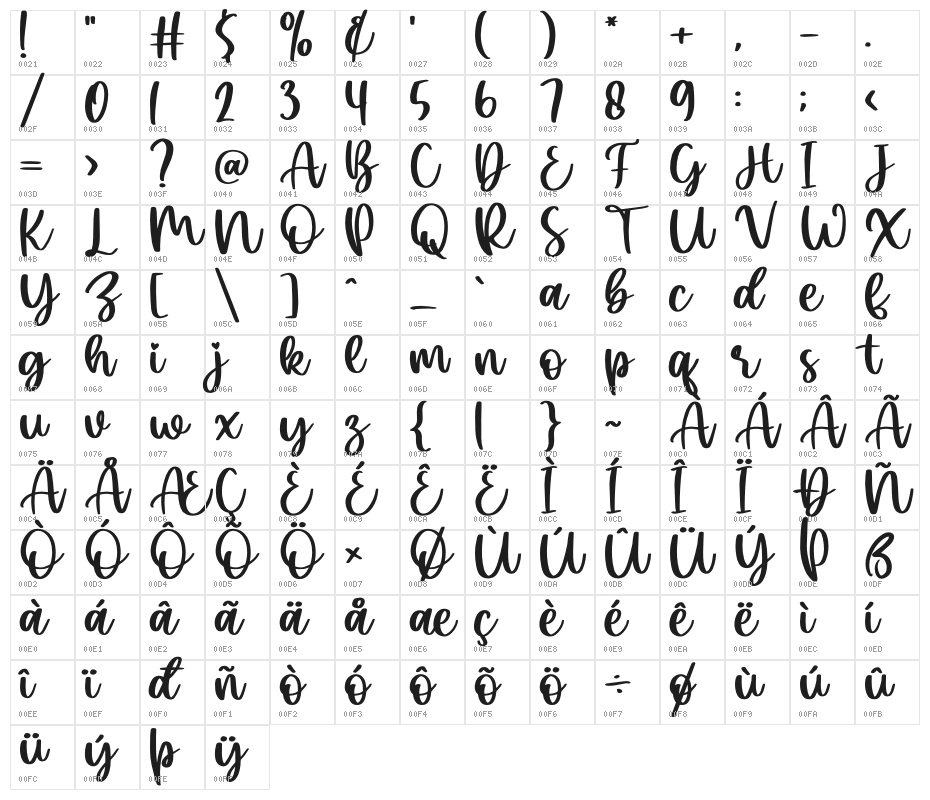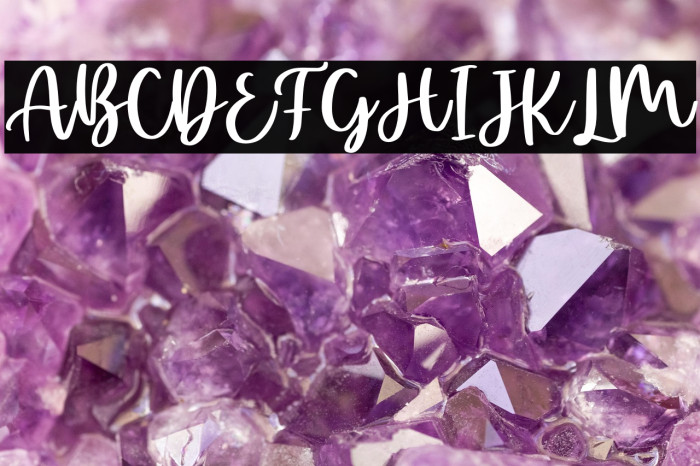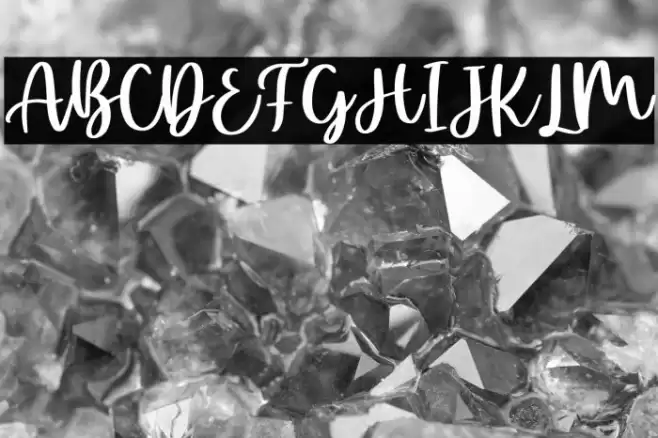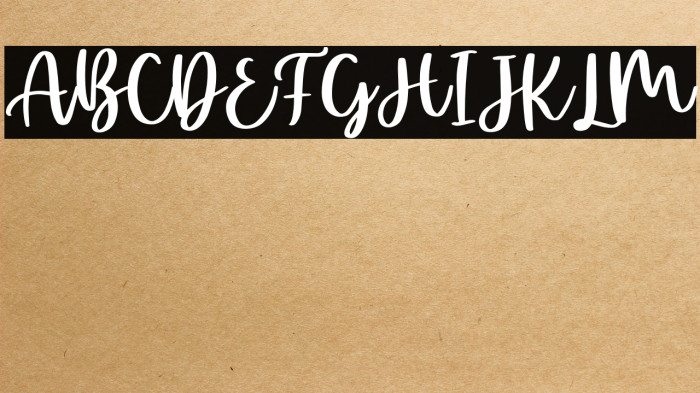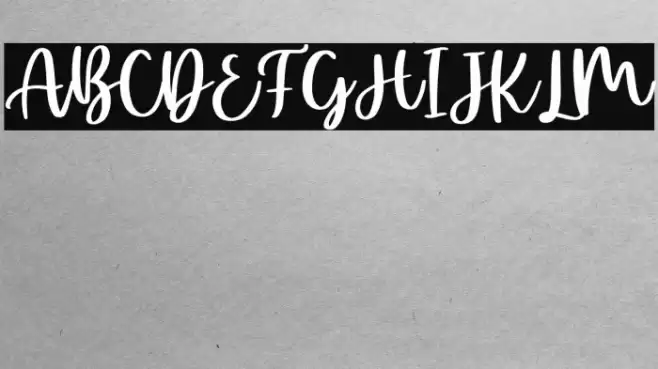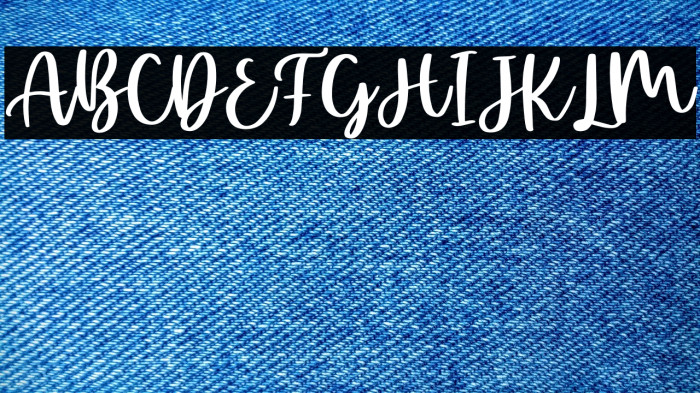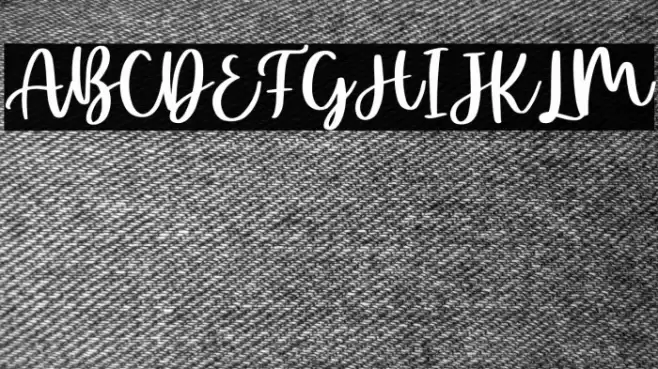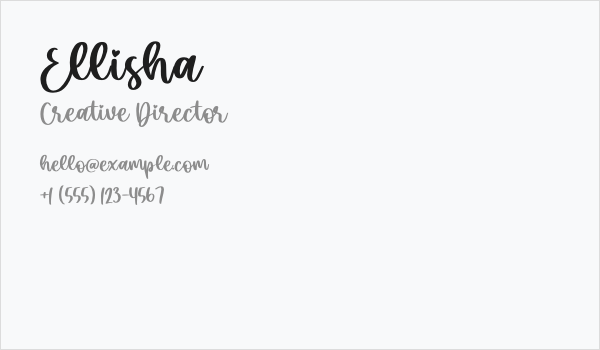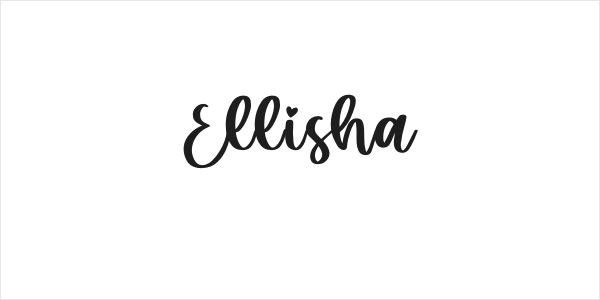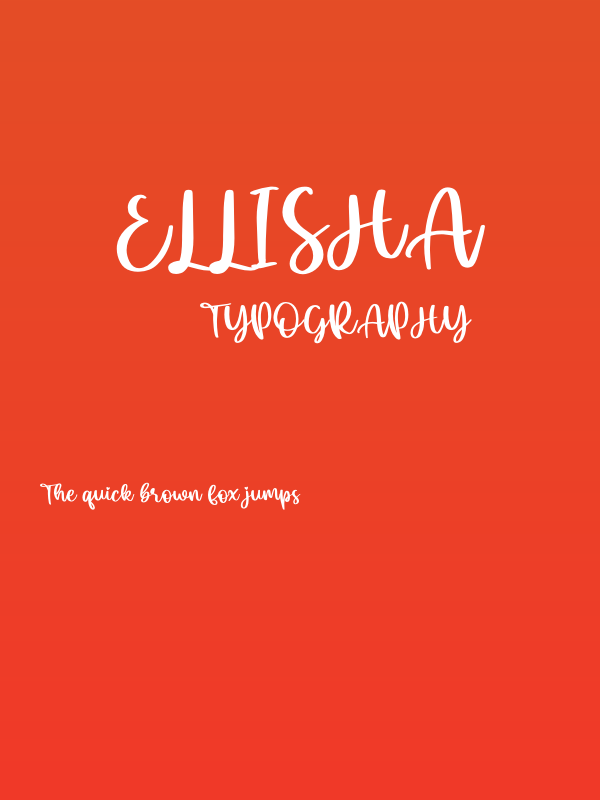
Ellisha Font
Ellisha Description
This font features a lively and flowing script style with a handwritten appearance. The characters are connected, creating a sense of continuity and movement. The strokes are bold and consistent, giving it a strong presence. The uppercase letters are slightly larger and more pronounced, while the lowercase letters maintain a smooth and elegant flow. The numbers and special characters are designed to match the overall aesthetic, with a playful yet sophisticated look. This font is ideal for projects that require a personal touch or a creative flair.
| Proposed Projects | Ideal for wedding invitations, greeting cards, logos, and branding materials that require a personal and artistic touch. |